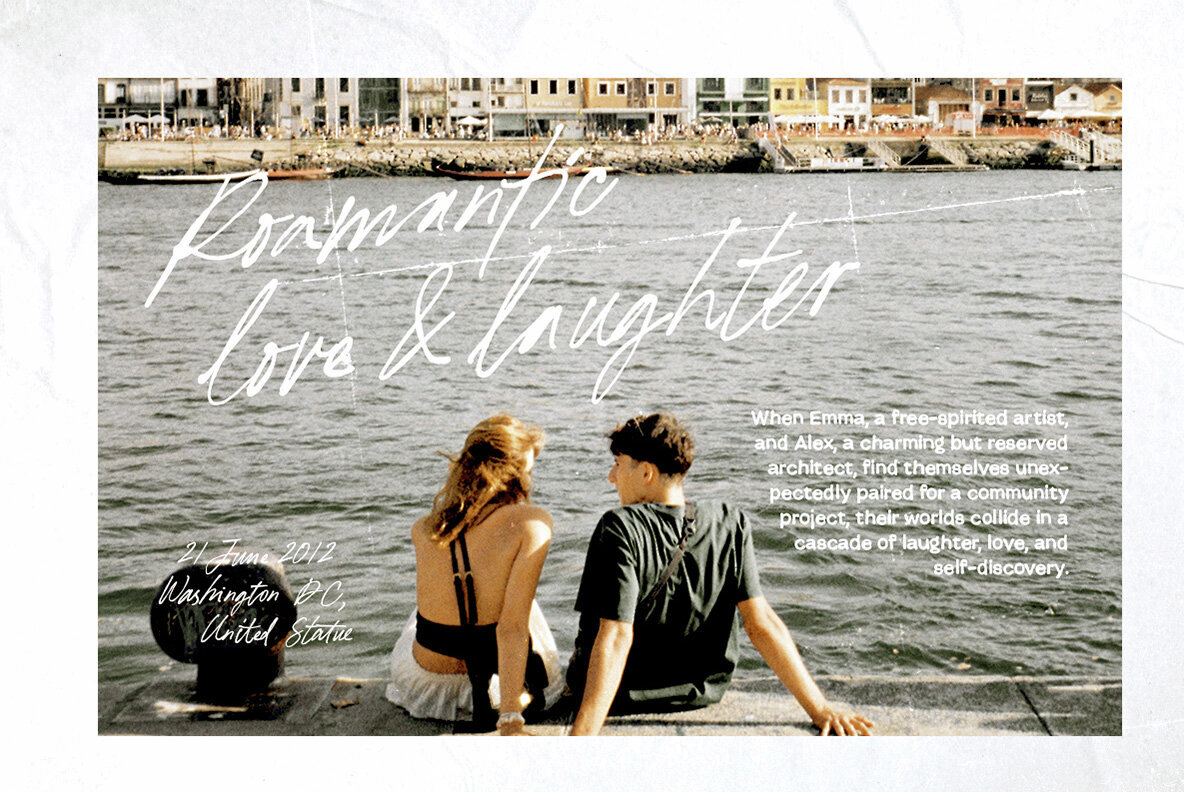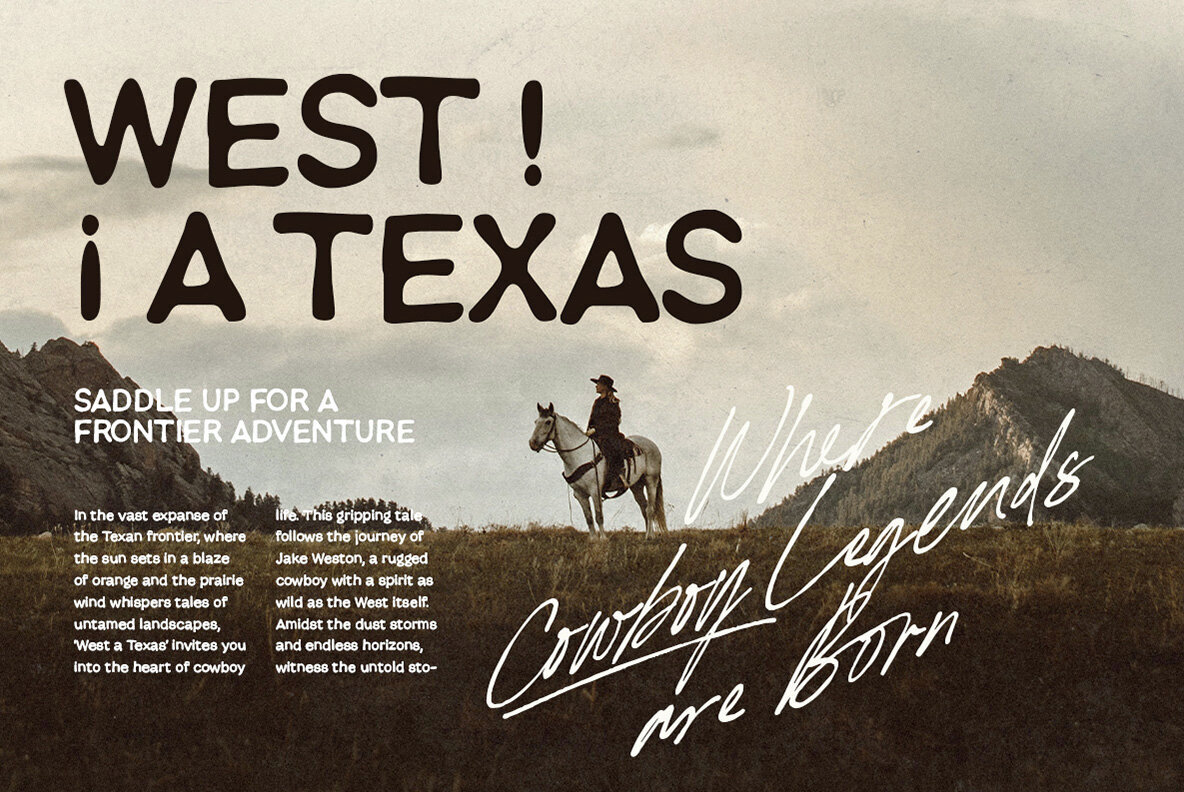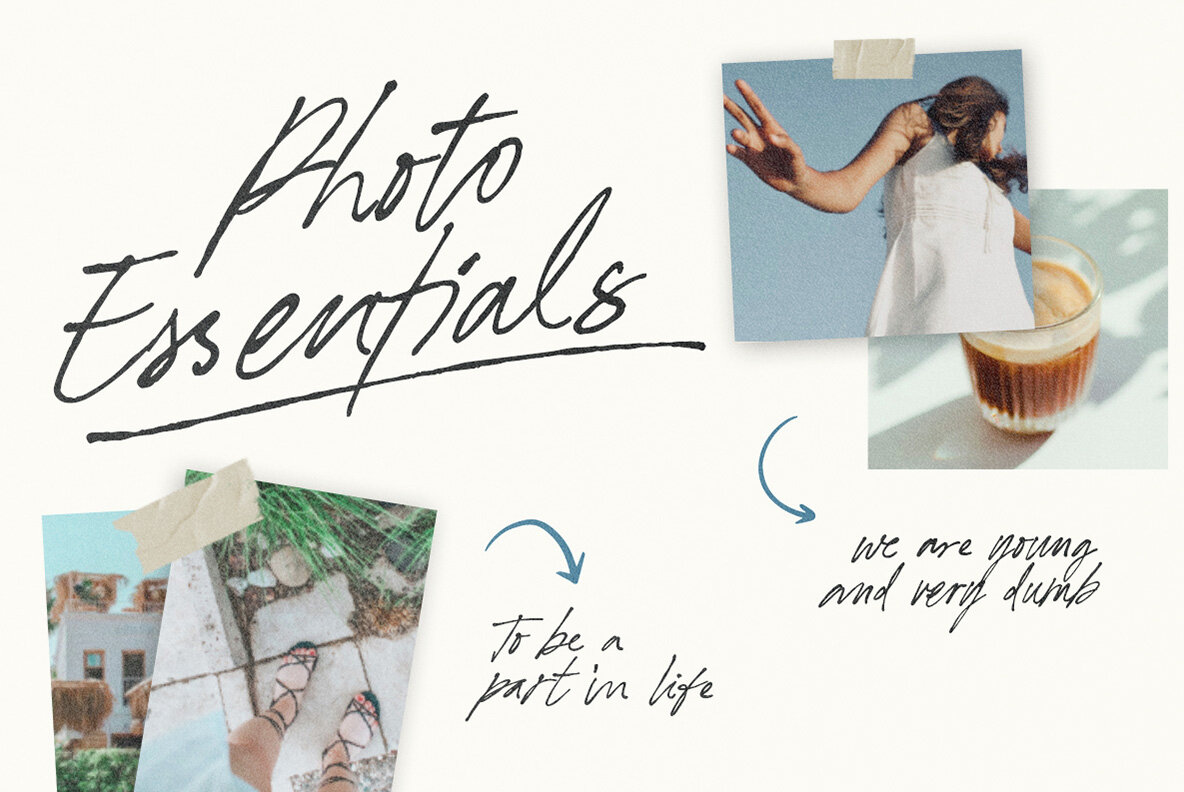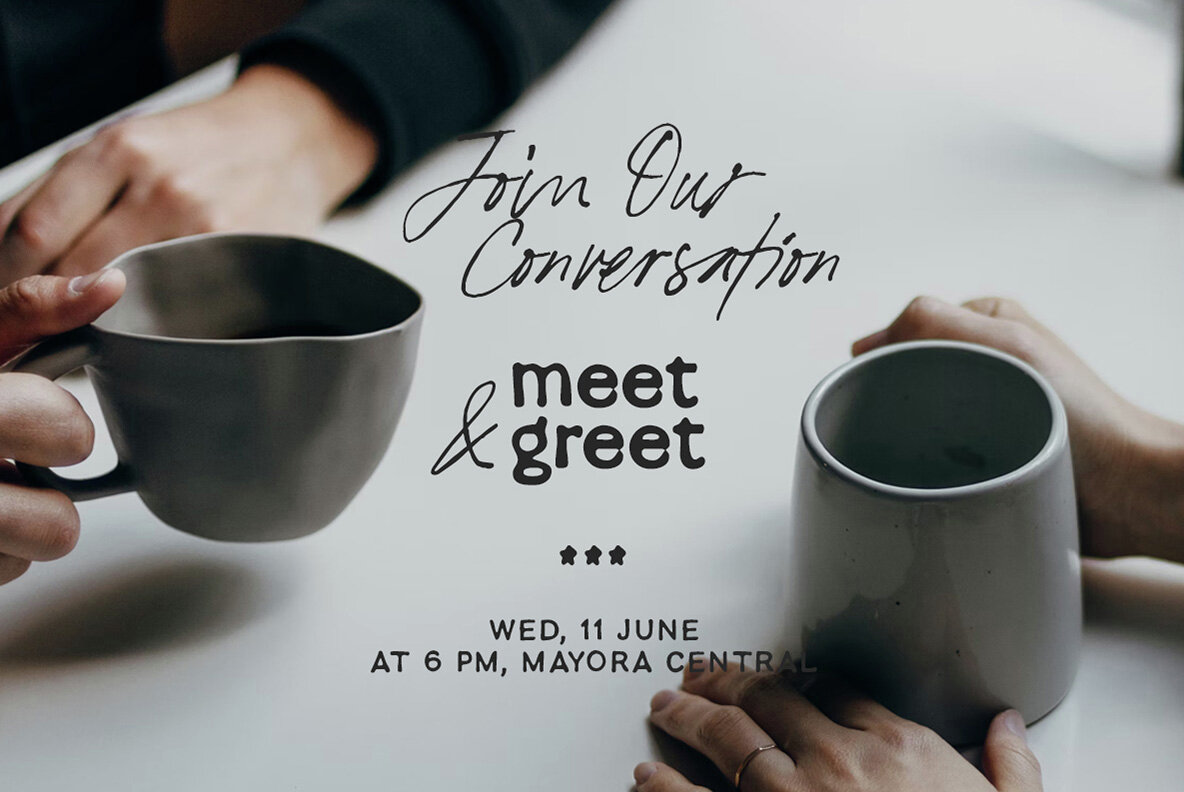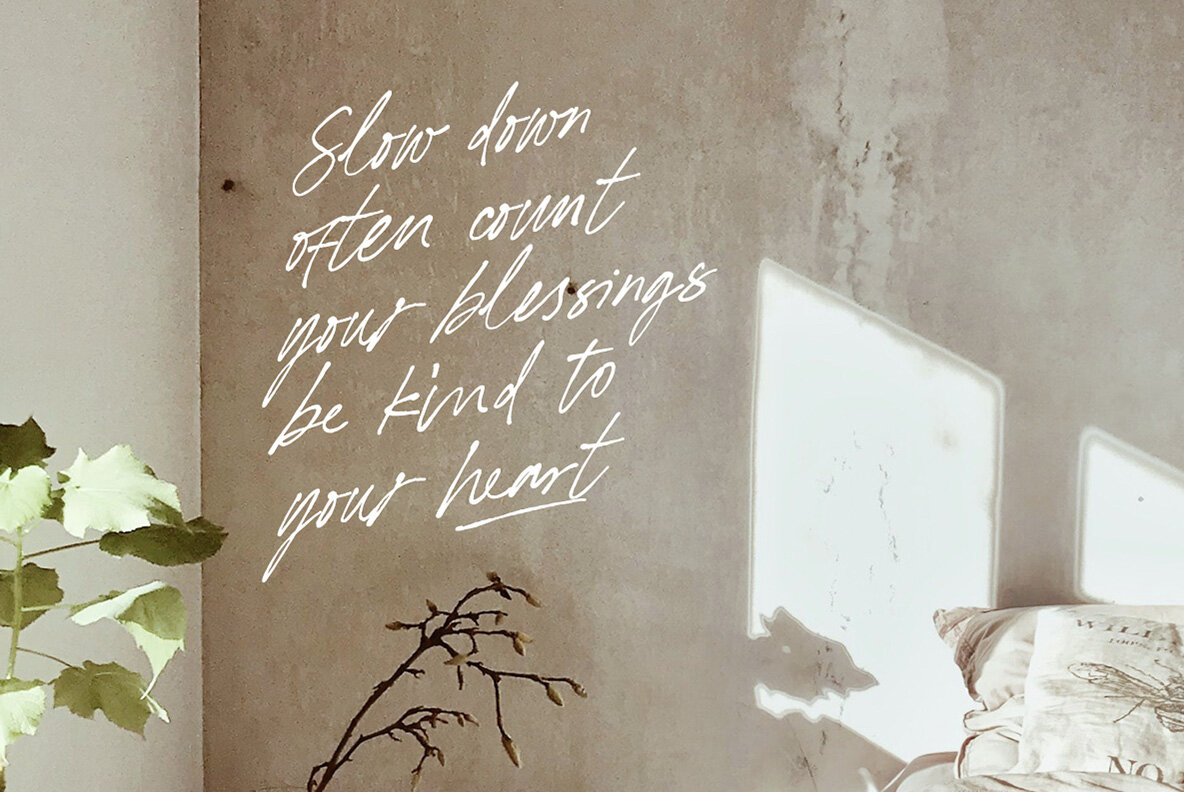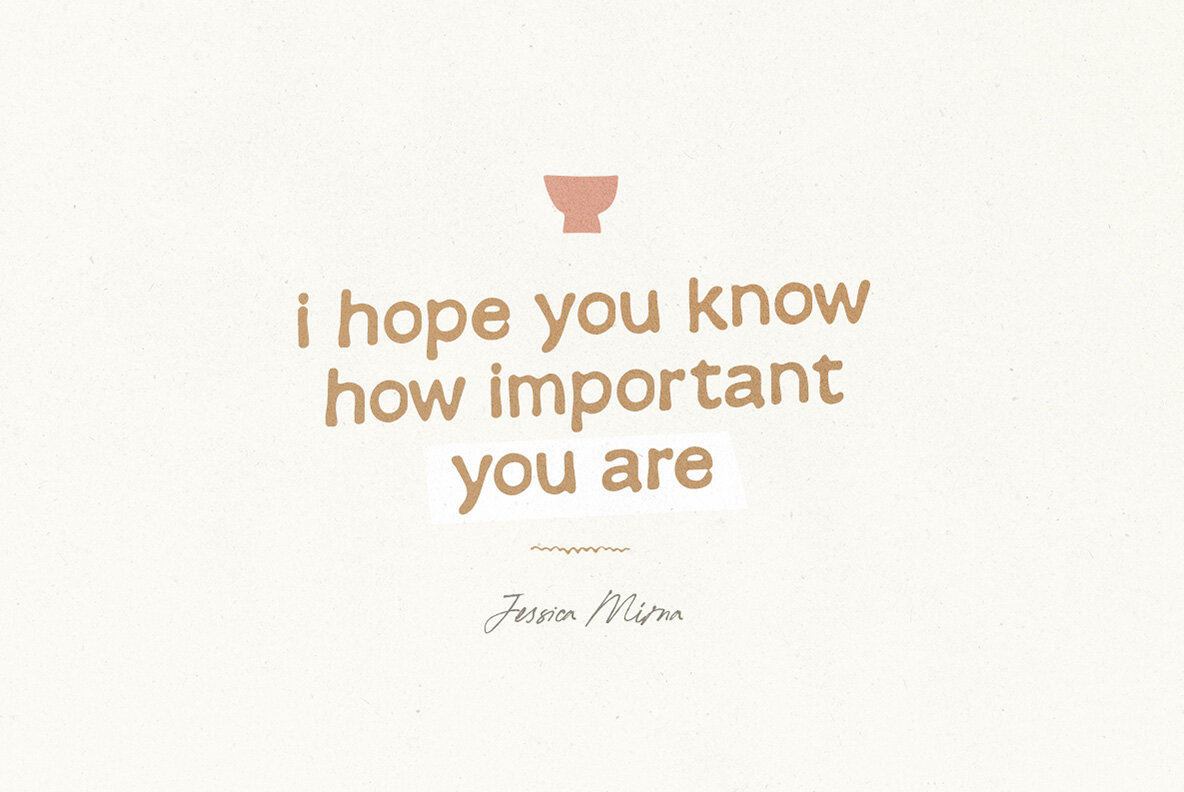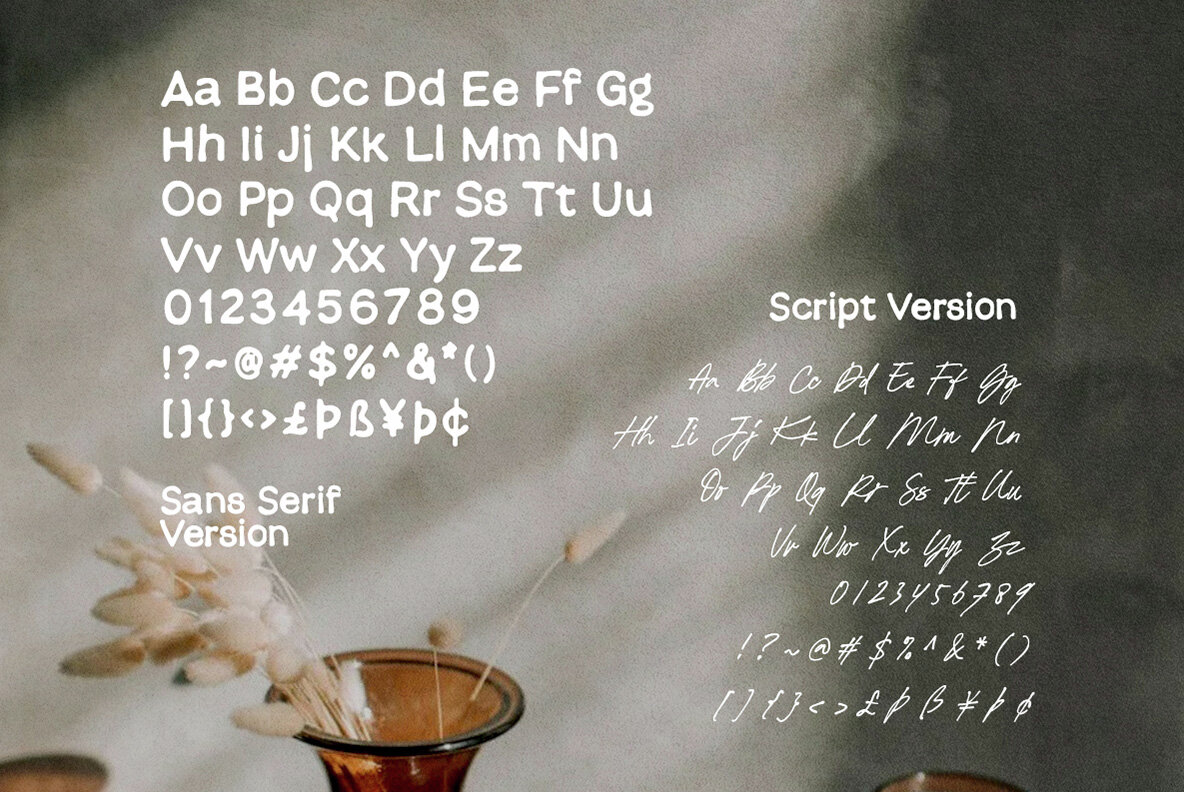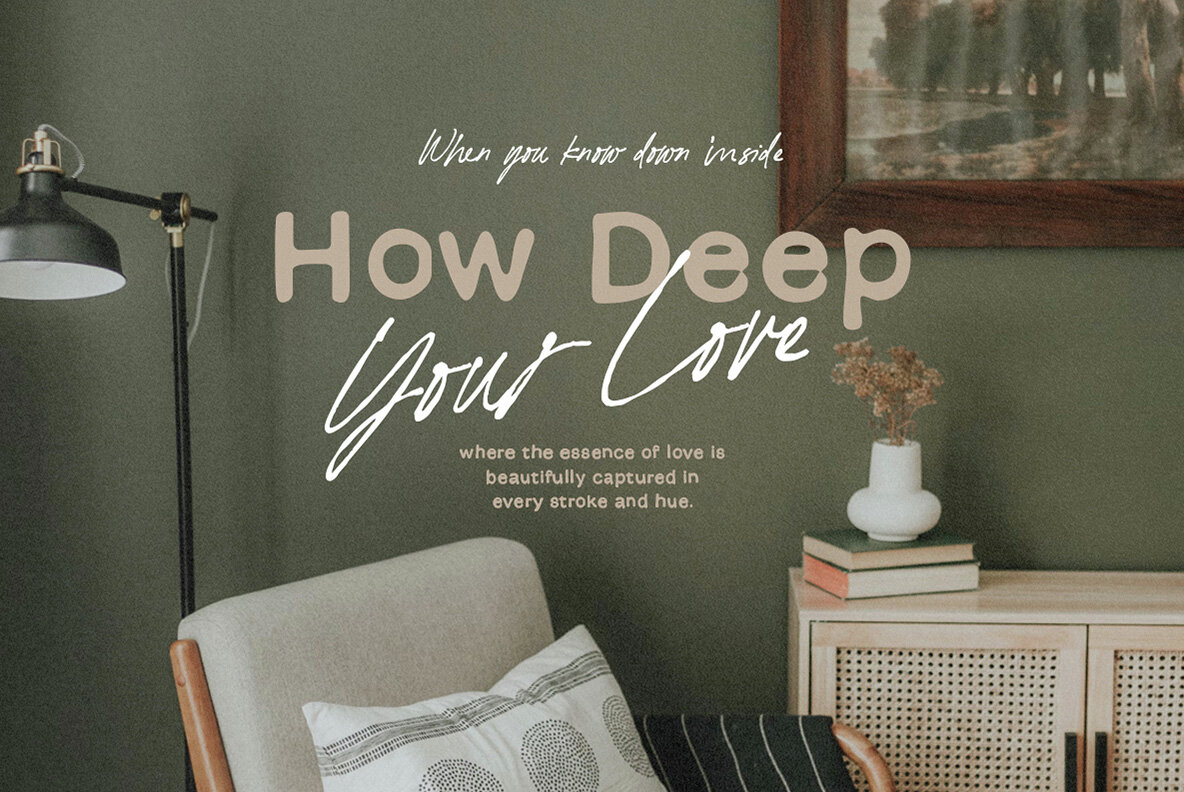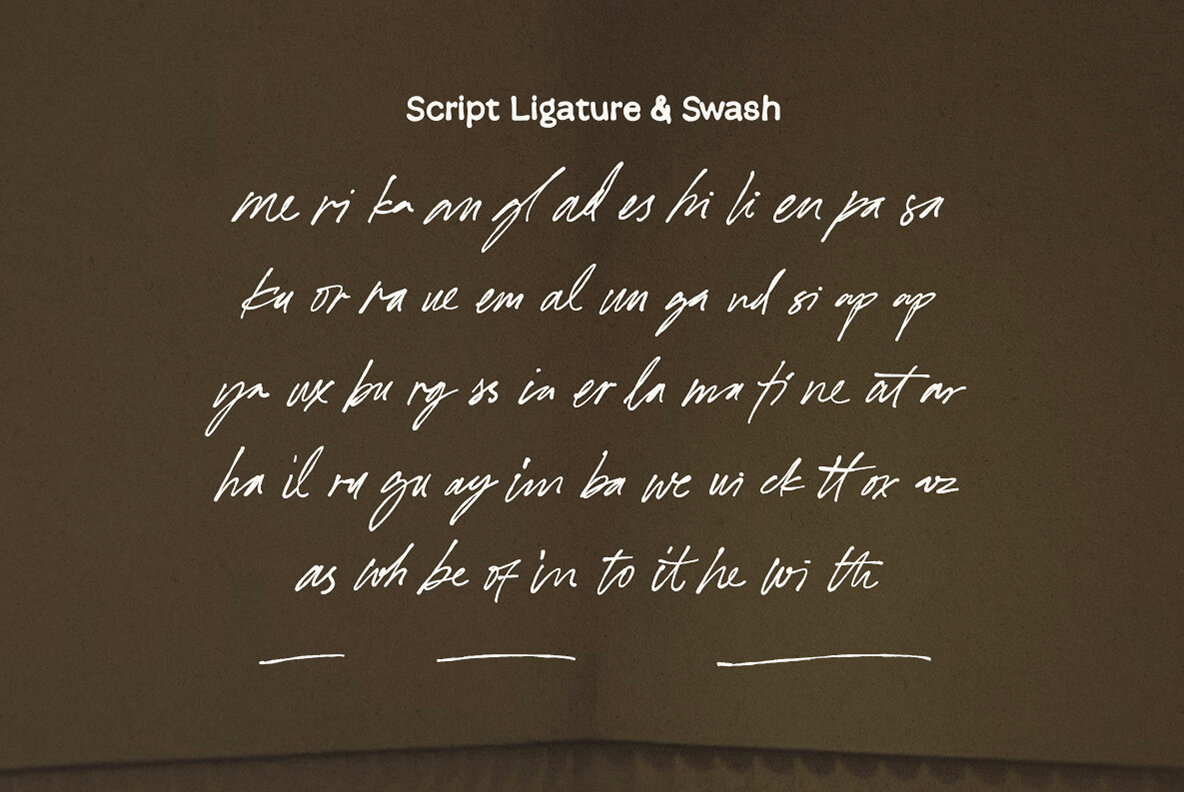
Pure Nature Font
Pure Nature Sans
Pure Nature Script
Pure Nature offers a harmonious combination of a handwritten script and an organic sans serif, bringing together natural elegance and modern aesthetics. The handwritten script features natural ligatures, providing a decorative touch, while the sans serif ensures excellent readability. Ideal for projects that require a personal and handcrafted feel, Pure Nature brings a human touch to your designs.
Versatile and functional, this font duo supports multiple languages, making it suitable for a wide range of applications. Whether you are designing invitations, branding materials, or digital content, Pure Nature adapts effortlessly to various design needs, adding both style and clarity to your work.